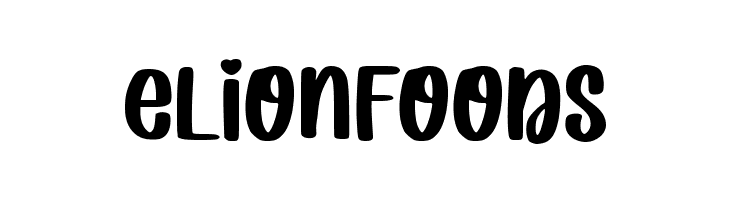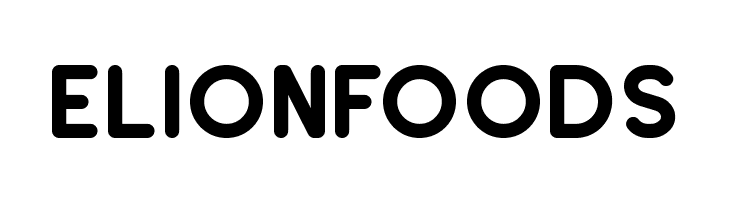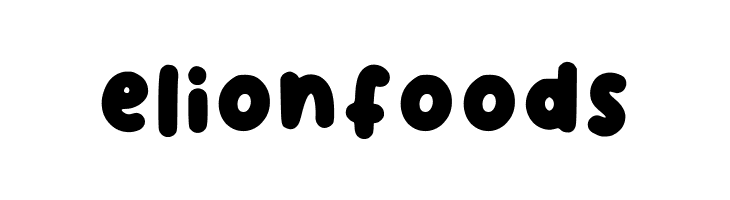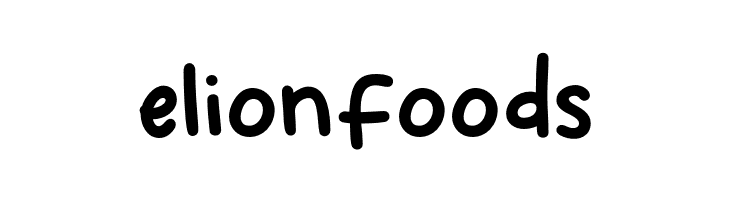
A bold, playful handwritten font with rounded, inviting characters.
A bold, rounded font with a playful and friendly style.
A bold, rounded sans-serif font with a friendly and modern appearance.
A bold, rounded font with a modern and friendly appearance.
A bold, rounded font with a friendly and modern appearance.
A playful, rounded font with a bold, uniform thickness and soft edges.
A playful, rounded font with a friendly and approachable style.
A bold, rounded font with a modern and friendly style.
A modern, rounded font with smooth curves and a friendly appearance.
A bold, rounded font with a playful and friendly style.